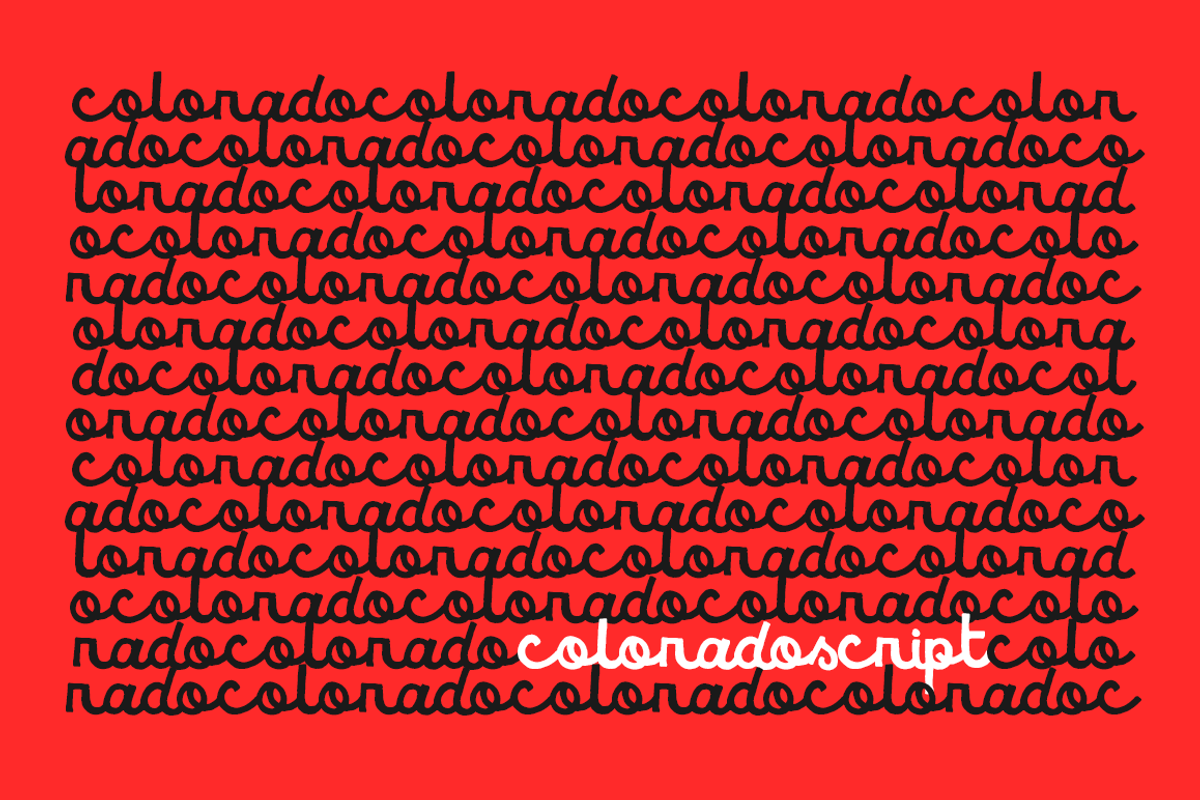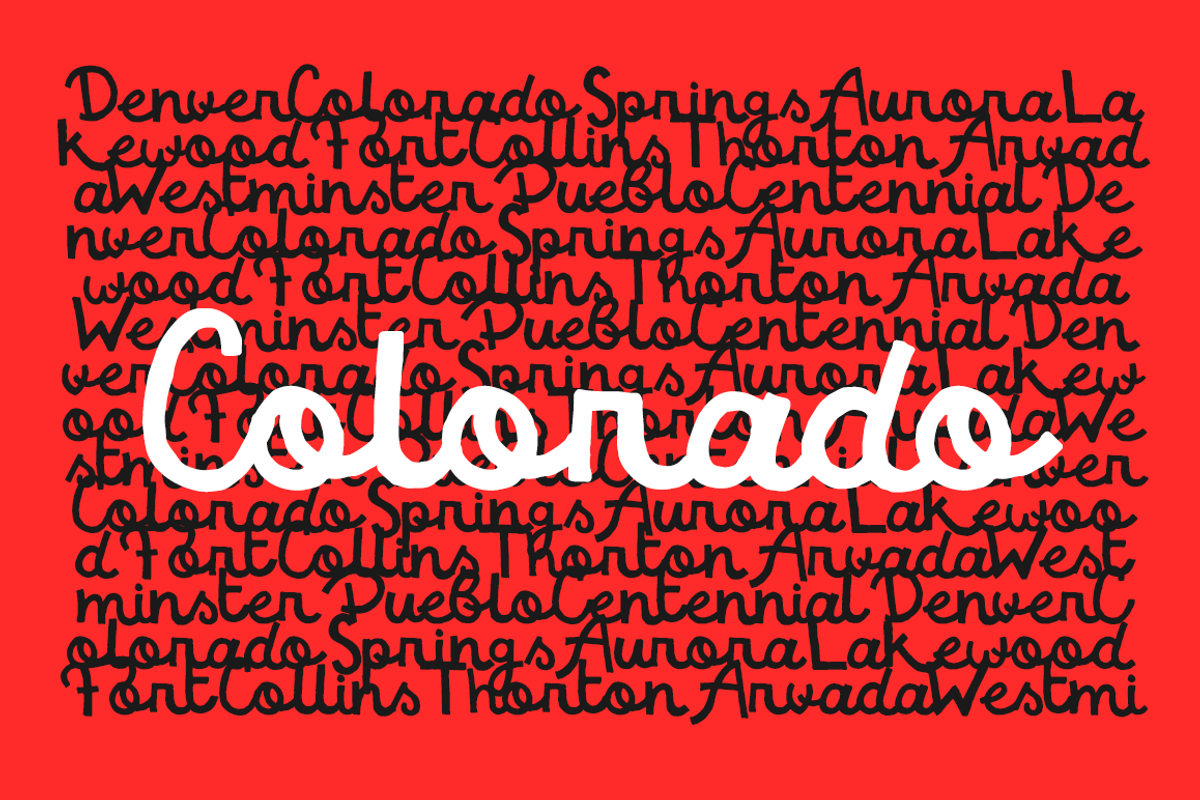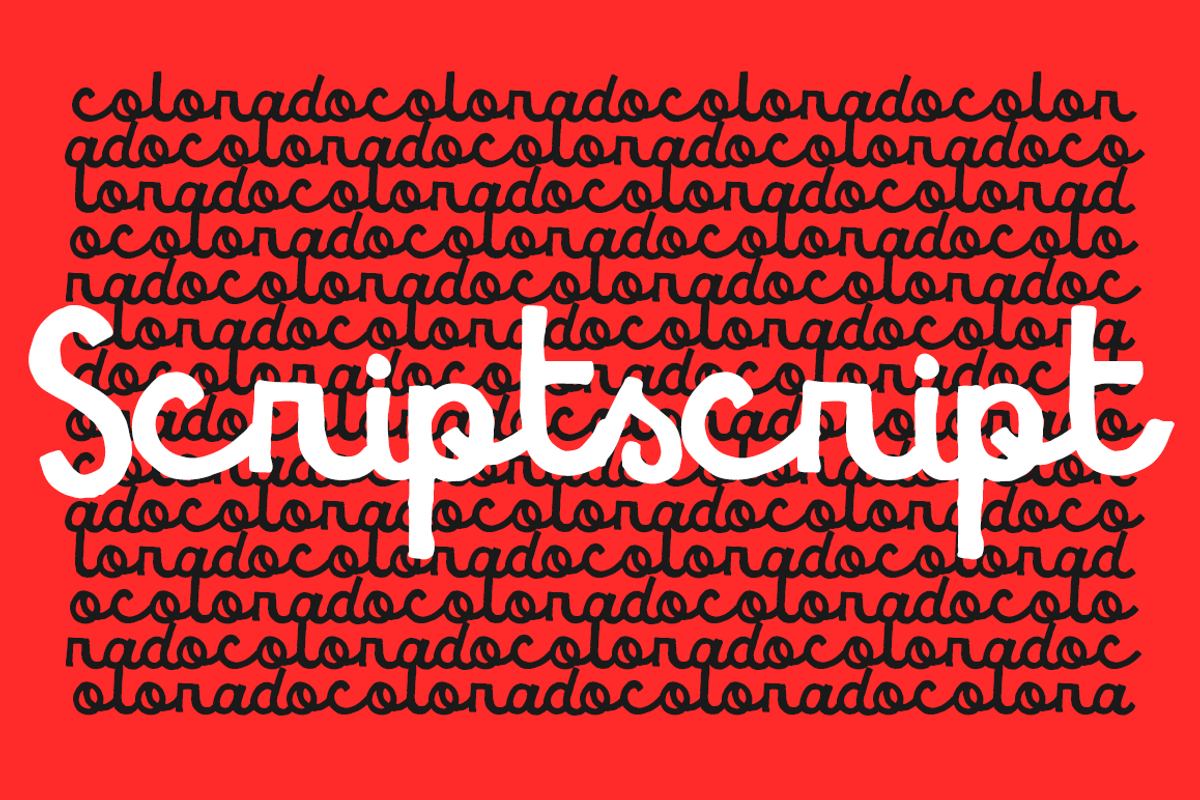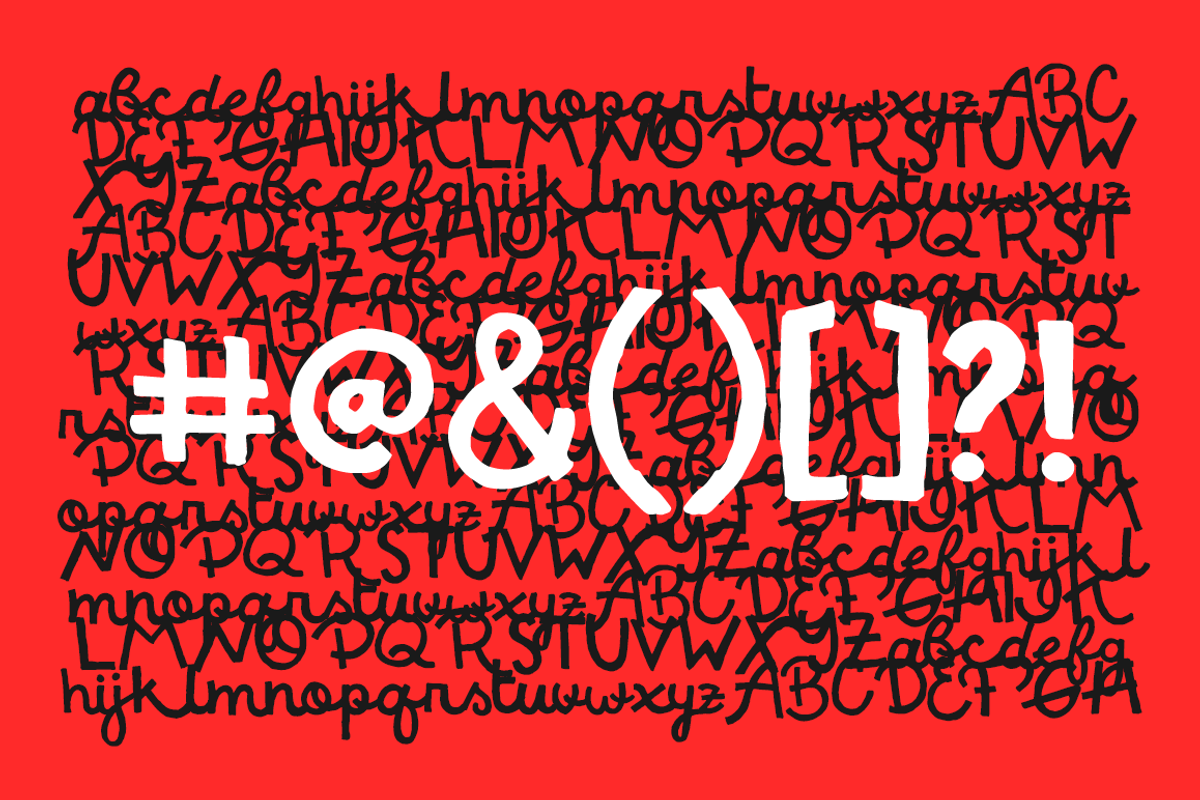
Colorado — Script Font
Colorado — Script Font by Noe Araujo is a font selected for branding, posters, packaging, typography.
Why Colorado — Script Font is worth a look
Colorado — Script Font by Noe Araujo fits naturally into Branding, posters, packaging, typography.